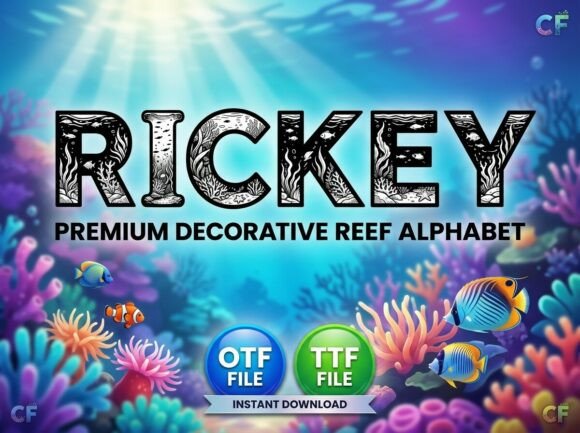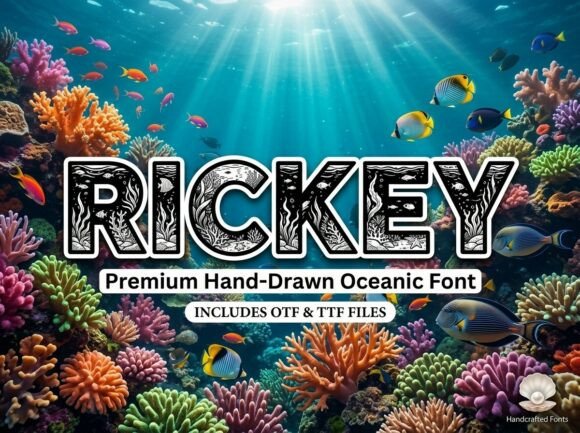
Introduction to Rickey Font
Submerge your creative projects in the breathtaking detail of the deep blue with Rickey, a decorative display font that celebrates the wonders of marine biology.
This high-impact typeface features a clean white outline that makes the detailed black-and-white internal artwork pop against any background Rickey is the ultimate choice for aquarium branding, environmental awareness posters, maritime-themed adventure book covers, and creative educational materials.
Key Features of Rickey Font
Why Choose Rickey Font?